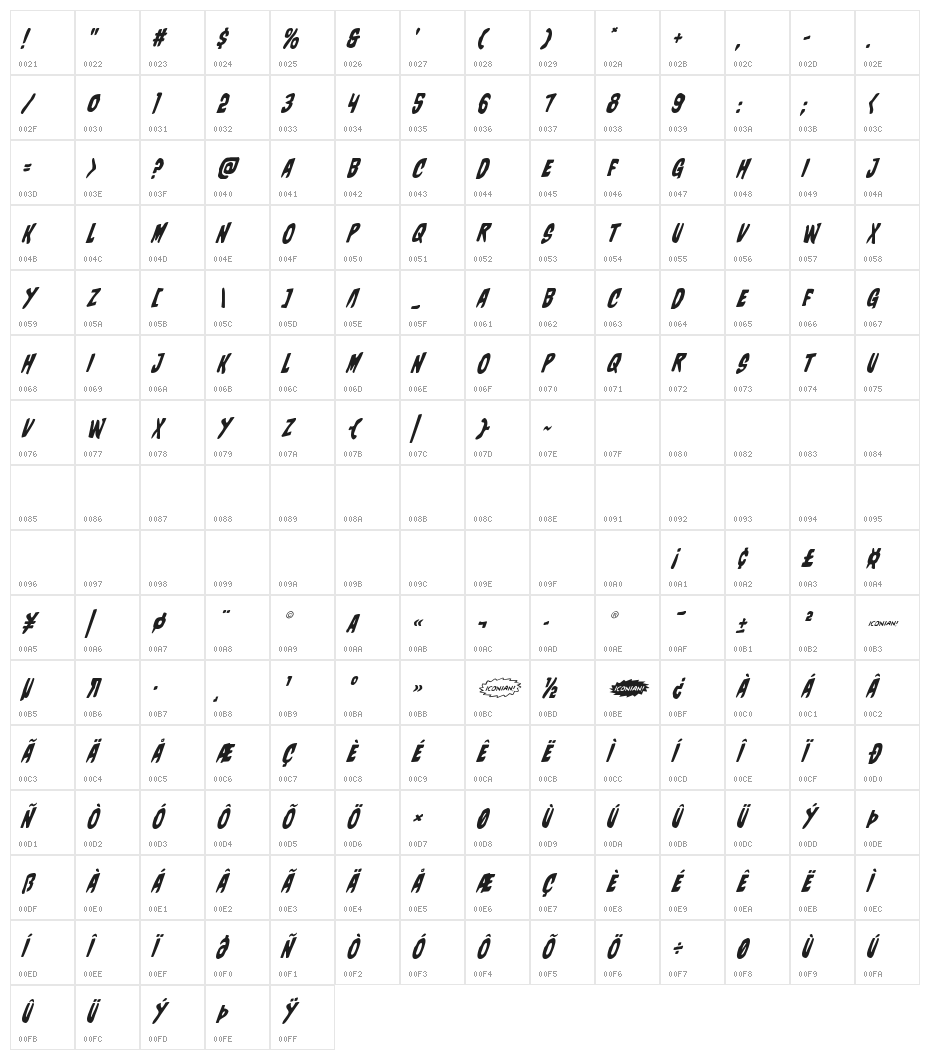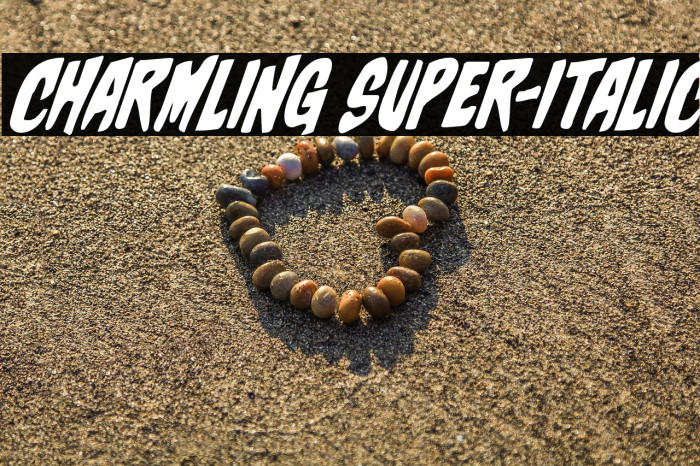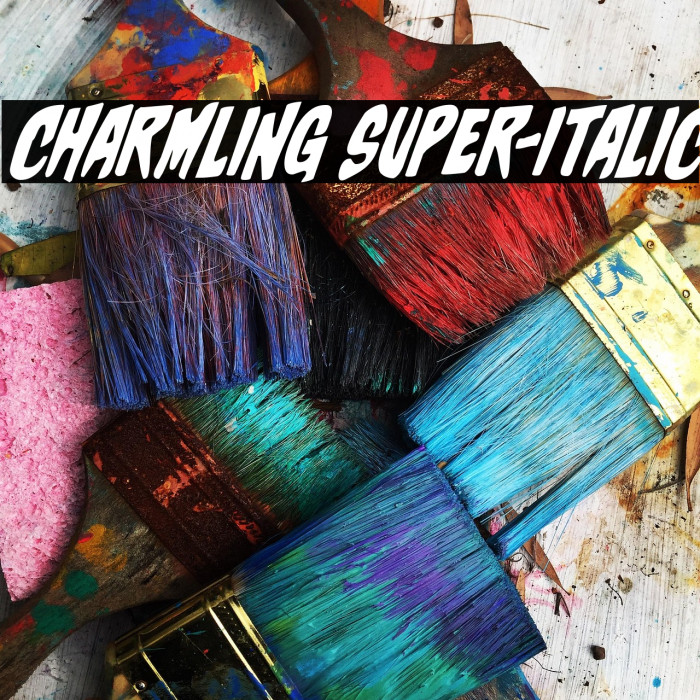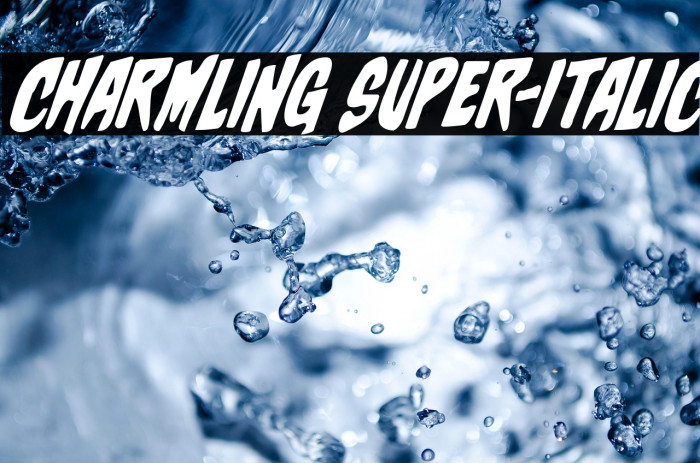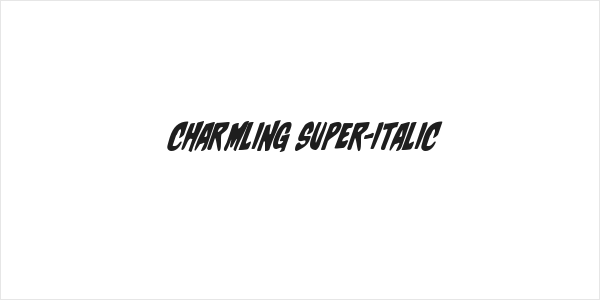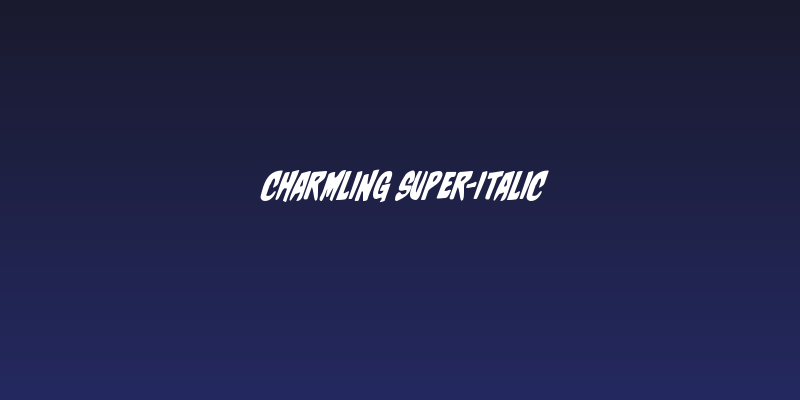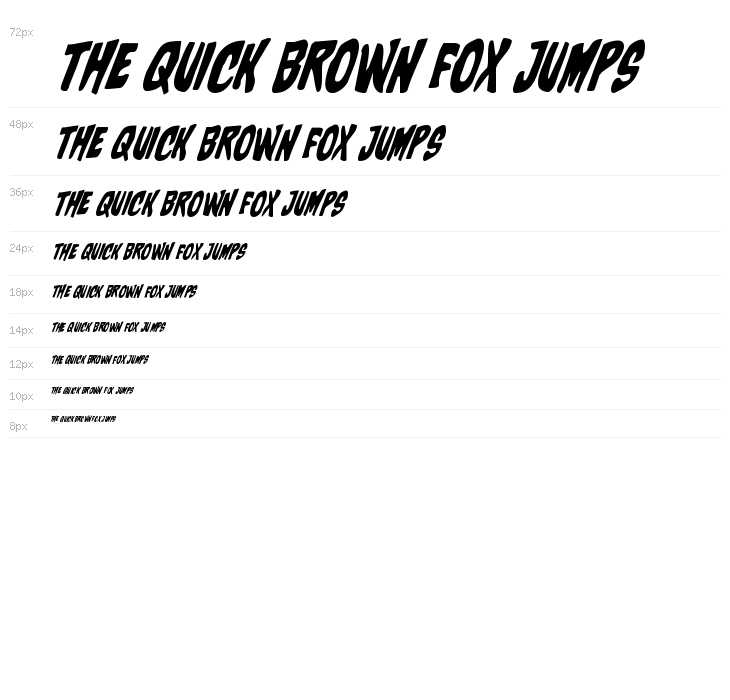
Charmling Super-Italic Font
Charmling Super-Italic Description
This font features a dynamic and energetic style with a pronounced italic slant, giving it a sense of motion and flair. The characters are bold and slightly condensed, with sharp angles and smooth curves that create a striking visual impact. The uppercase and lowercase letters maintain a consistent style, while the numerals and special characters blend seamlessly with the overall design. The font's boldness and unique character shapes make it suitable for attention-grabbing headlines and creative projects.
| Proposed Projects | Ideal for sports branding, dynamic posters, edgy advertisements, and modern logo designs. |